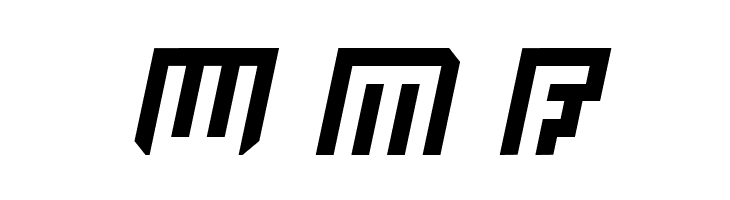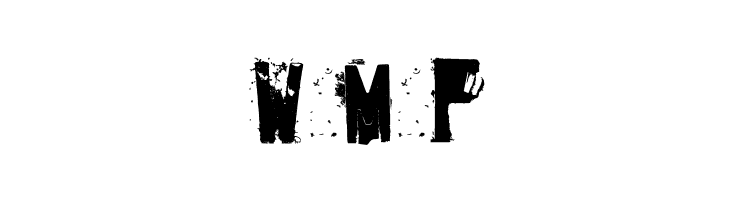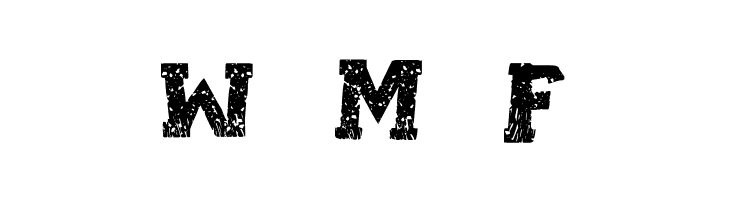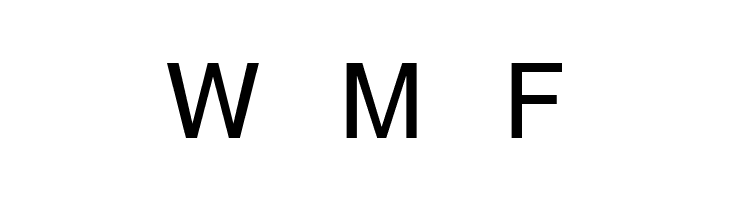
Denigrated Font
A bold, distressed font with a textured, hand-drawn appearance.
Mesa Grande Font
A bold, geometric font with a modern and industrial aesthetic.
alpha kufi regular Font
A bold, geometric font inspired by traditional Kufi script with intricate details.
DIN Rundschrift Breit Font
A bold, rounded sans-serif font with a modern and clean appearance.
Weather Sunday - Personal Use Font
An elegant and flowing script font with interconnected letterforms.
Fira Sans Heavy Font
A bold, modern sans-serif font with a strong presence.
BigMummy Font
A bold, high-contrast font perfect for impactful headlines and logos.
Cocktail Bubbly Font
A playful, bubbly font with a whimsical and effervescent style.
ShadowedGermanica Font
A shadowed blackletter font with intricate Gothic details.
Kinder Child Font
A playful, rounded font with a hand-drawn feel, perfect for child-friendly designs.
Sarala Font
A modern sans-serif font with clean lines and balanced proportions.
Blogger Sans Light Font
A clean, modern sans-serif font with a light weight and rounded edges.
Pike Regular Font
A bold, geometric font with a unique triangular pattern.
Urdu Khush Khat L Font
A classic serif font with elegant and balanced characters.
New LiteBulb Font
A bold, playful font with rounded edges and a modern, whimsical style.
Cartoonist Simple Font
A playful, hand-drawn font with a cartoonish style and bold, rounded characters.
Nobody Talks Font
A modern, geometric font with a sleek and technical design.
GrantRusticOpti Font
A rustic, handcrafted font with bold, uneven strokes and vintage charm.
Opeln2001 Szeroki Font
A bold, geometric font with a modern and clean aesthetic.
Printhouse Font